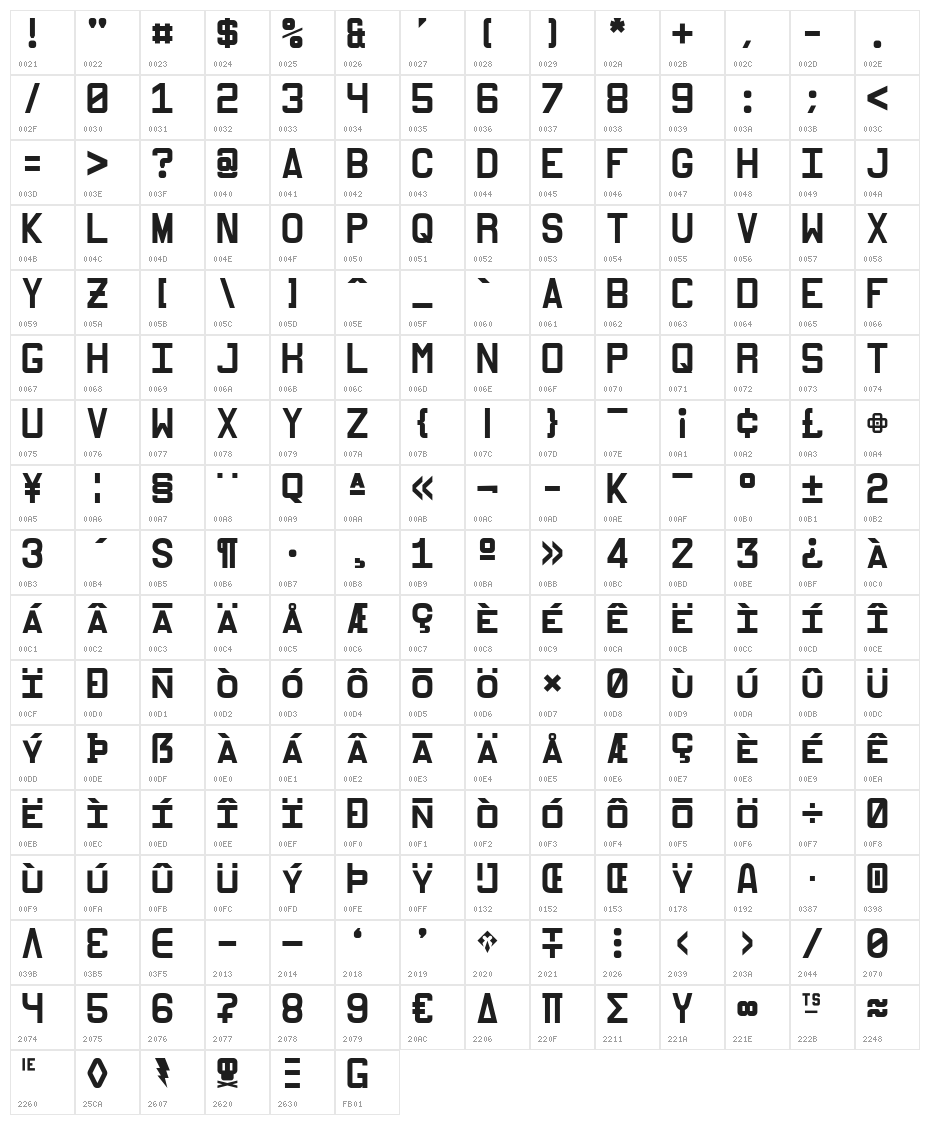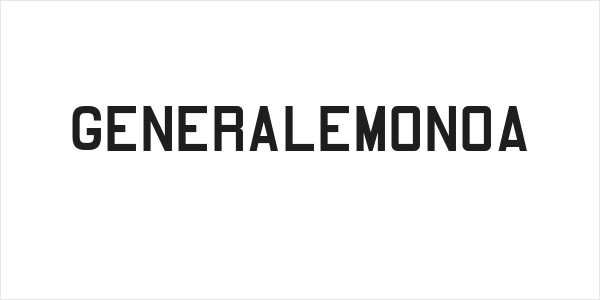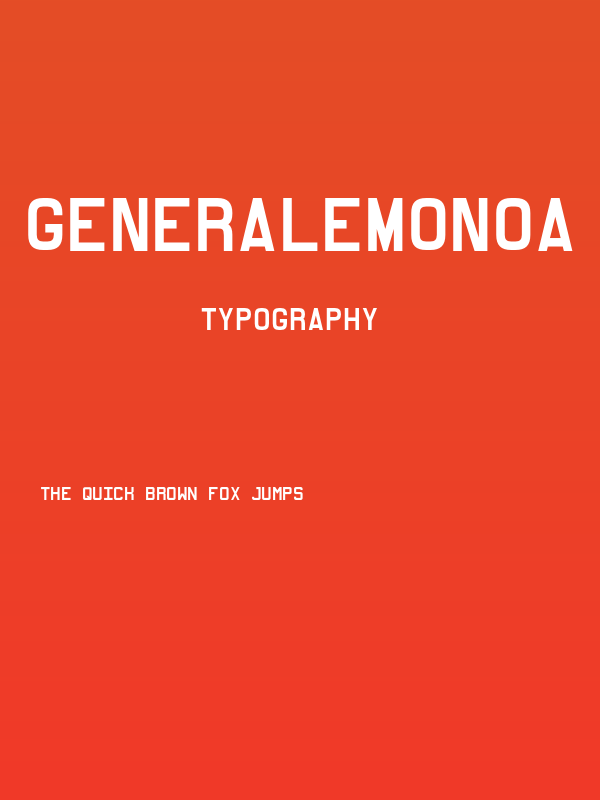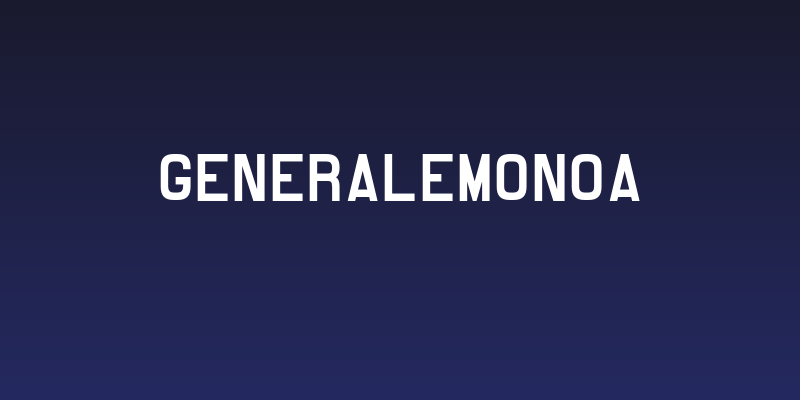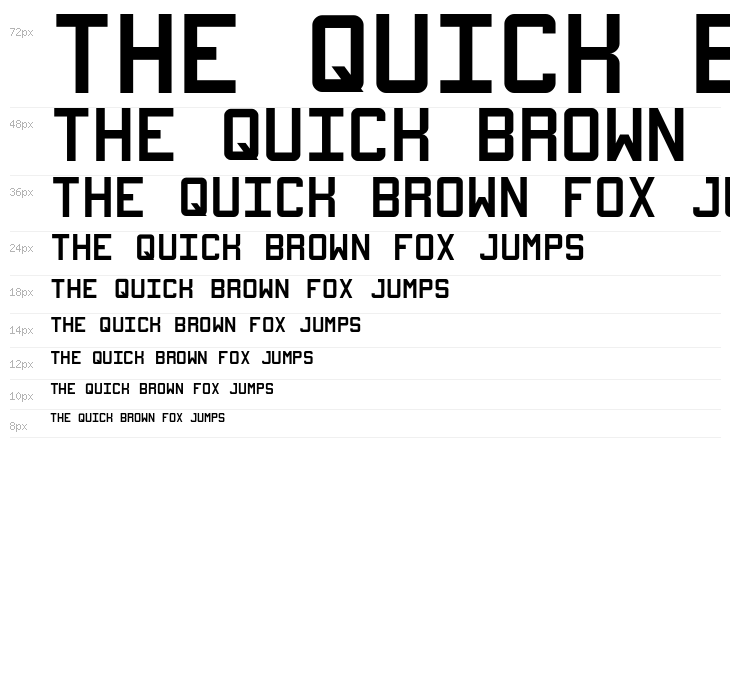
GeneraleMonoA Font
GeneraleMonoA Description
This font features a bold, geometric design with a monospaced structure, providing a modern and technical appearance. The characters are uniformly spaced, contributing to a clean and organized look. The uppercase and lowercase letters maintain a consistent height, enhancing readability and uniformity. The numerals and special characters are designed with the same geometric precision, making them ideal for technical documents or coding environments. The overall style is utilitarian, with a focus on clarity and functionality.
| Use Case | Coding, Technical documents |
| Proposed Projects | Ideal for coding, technical documents, data sheets, and any project requiring a clean, organized typeface. |